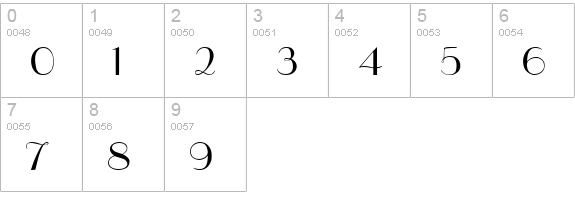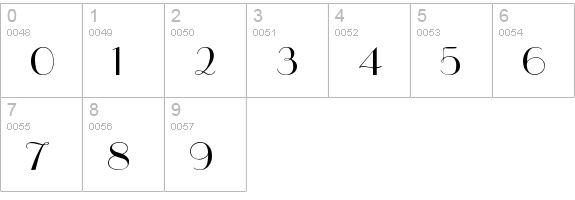
Introducing Upper East Side, a beautifully crafted font that exudes elegance and sophistication. Inspired by the luxurious lifestyle of Manhattan's iconic Upper East Side, this typeface is the perfect embodiment of refined taste and timeless beauty. With its sleek and slender letterforms, Upper East Side captures the essence of high-end fashion and exclusive social circles. Each character is meticulously designed to evoke a sense of prestige and class, making it ideal for upscale branding, editorial layouts, and glamorous invitations. But what sets Upper East Side apart is not just its stunning aesthetics – it's also freely available to download at FontsMarket.com. Yes, you read that right – this extraordinary font can be yours without any cost. Whether you're a professional designer looking to elevate your projects or an aspiring creative seeking to add a touch of opulence to your personal endeavors, Upper East Side is the perfect choice. With its wide range of glyphs, including alternate characters and ligatures, Upper East Side offers endless possibilities for customization and creative expression. Its versatility allows it to effortlessly adapt to various design themes, from contemporary minimalism to vintage charm, ensuring that it remains a timeless asset in your font library. So why wait? Embrace the allure of the Upper East Side and add a touch of sophistication to your designs. Download Upper East Side for free at FontsMarket.com and experience the epitome of elegance in typography.